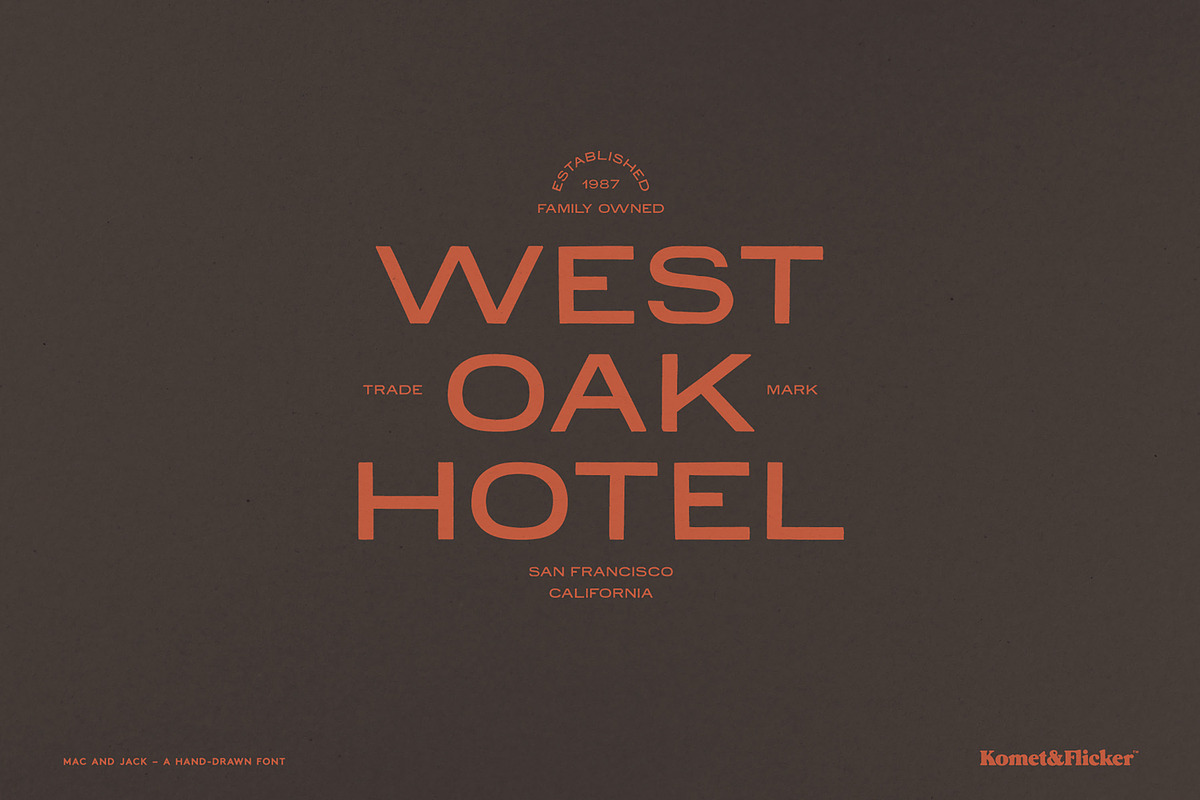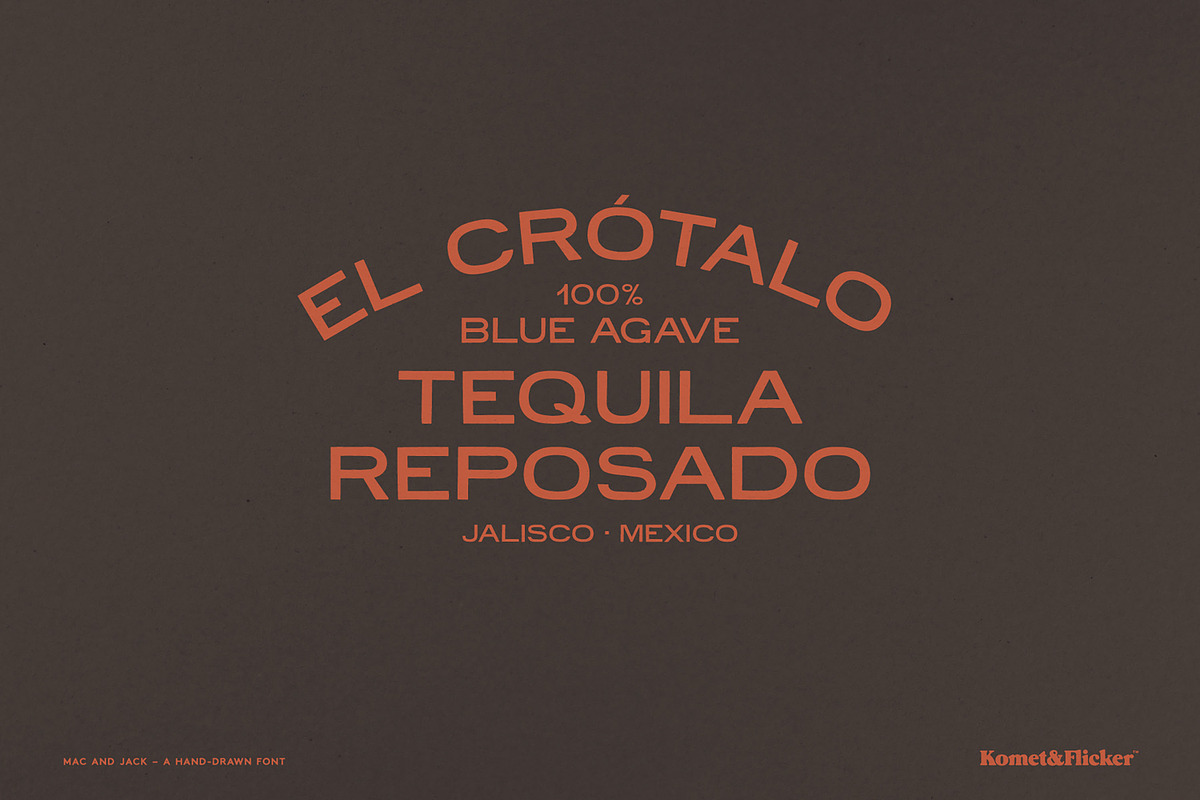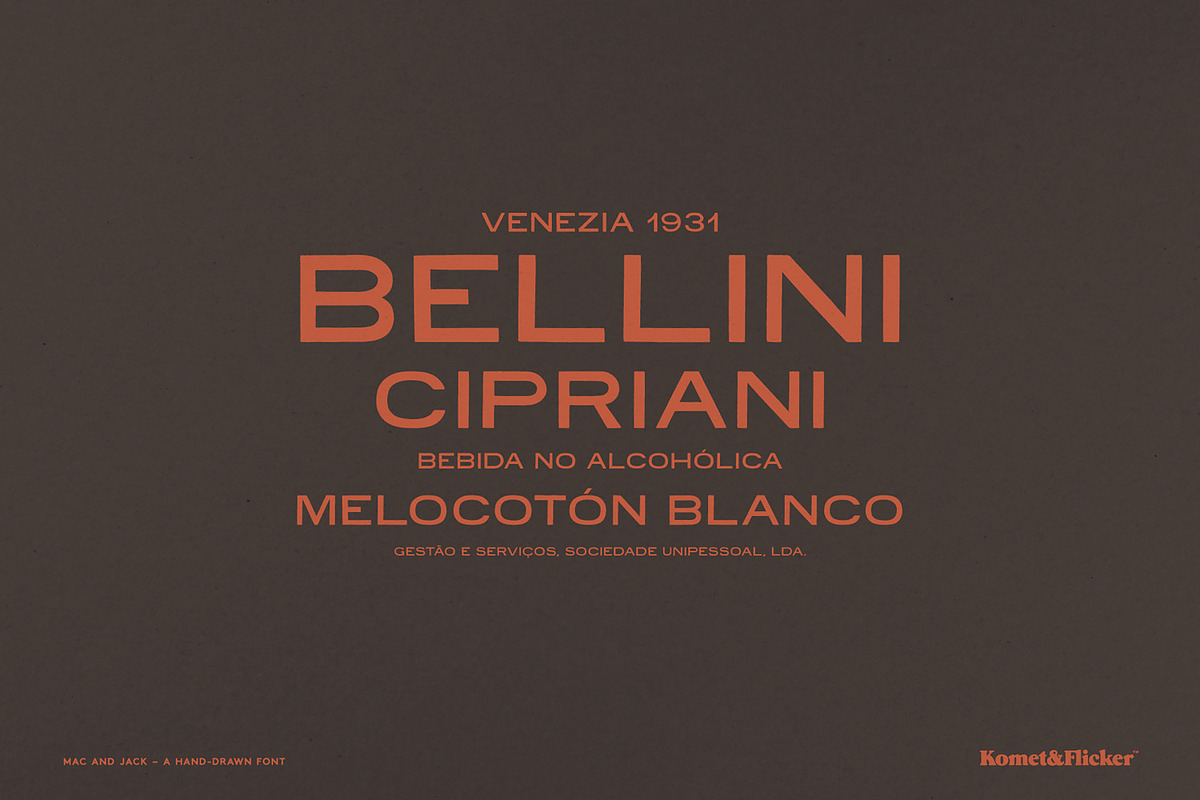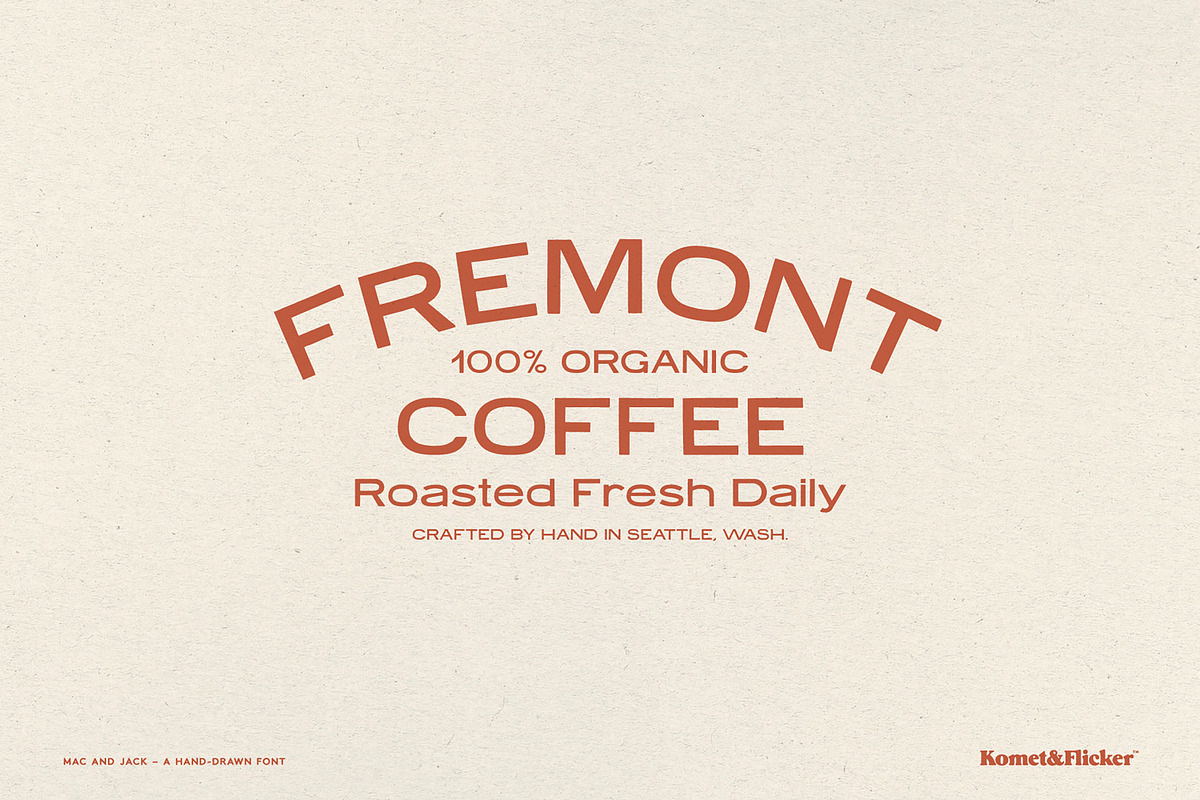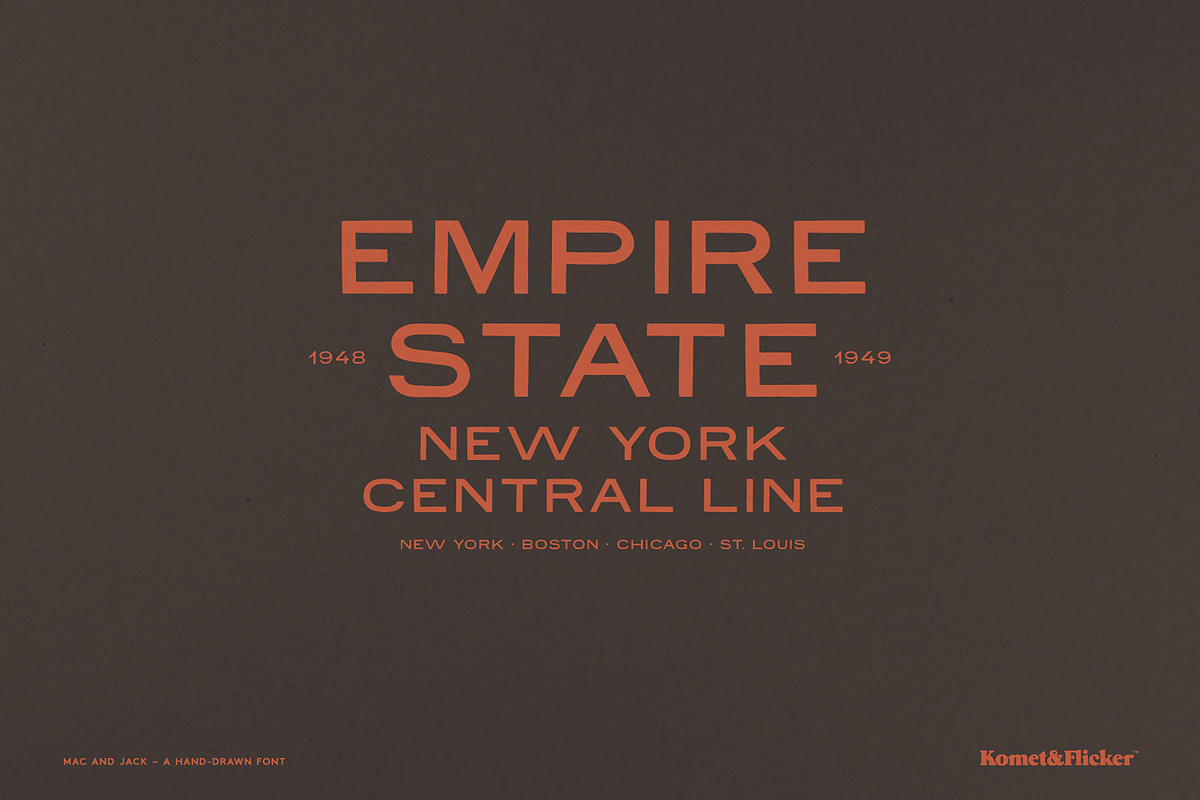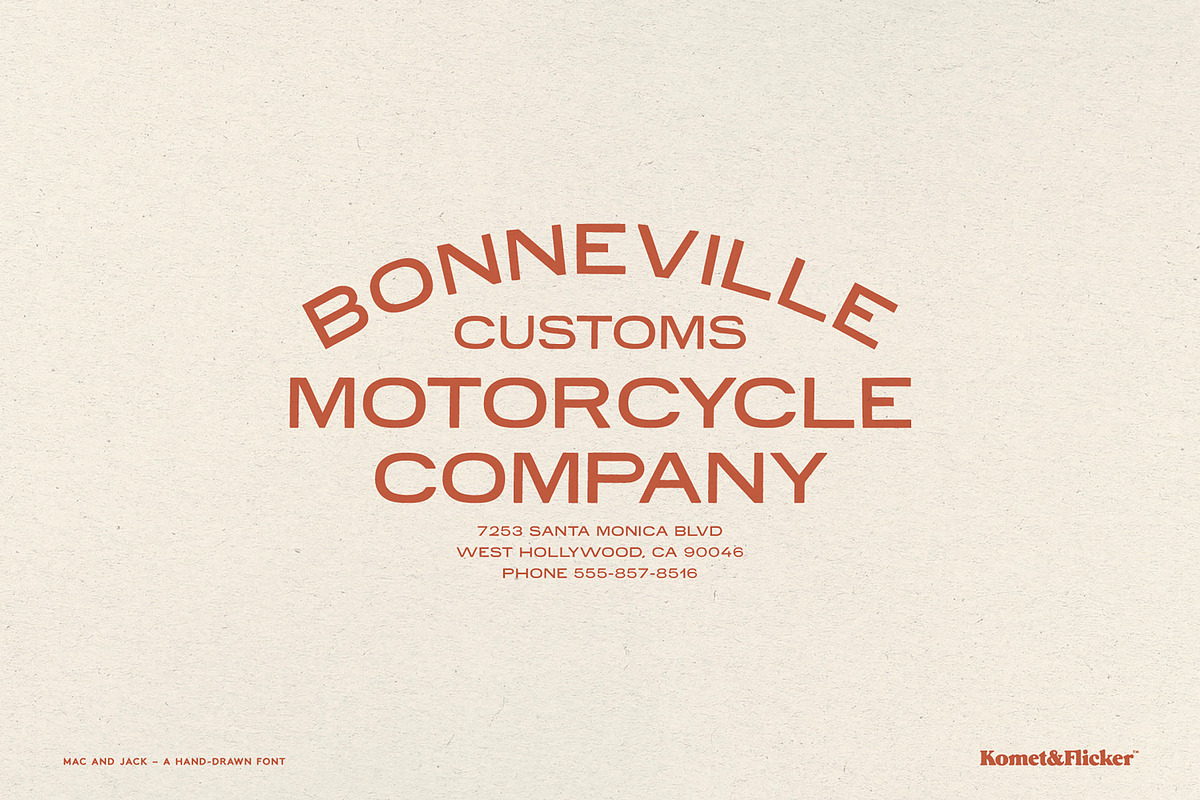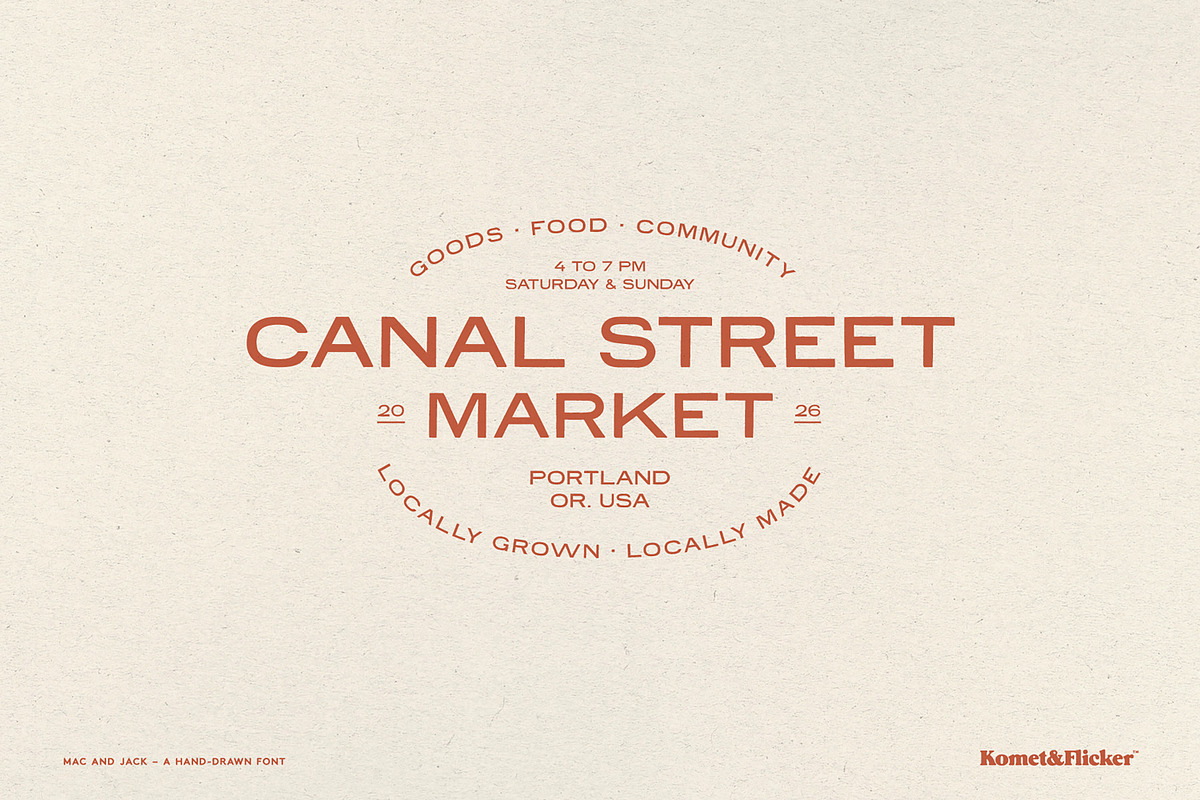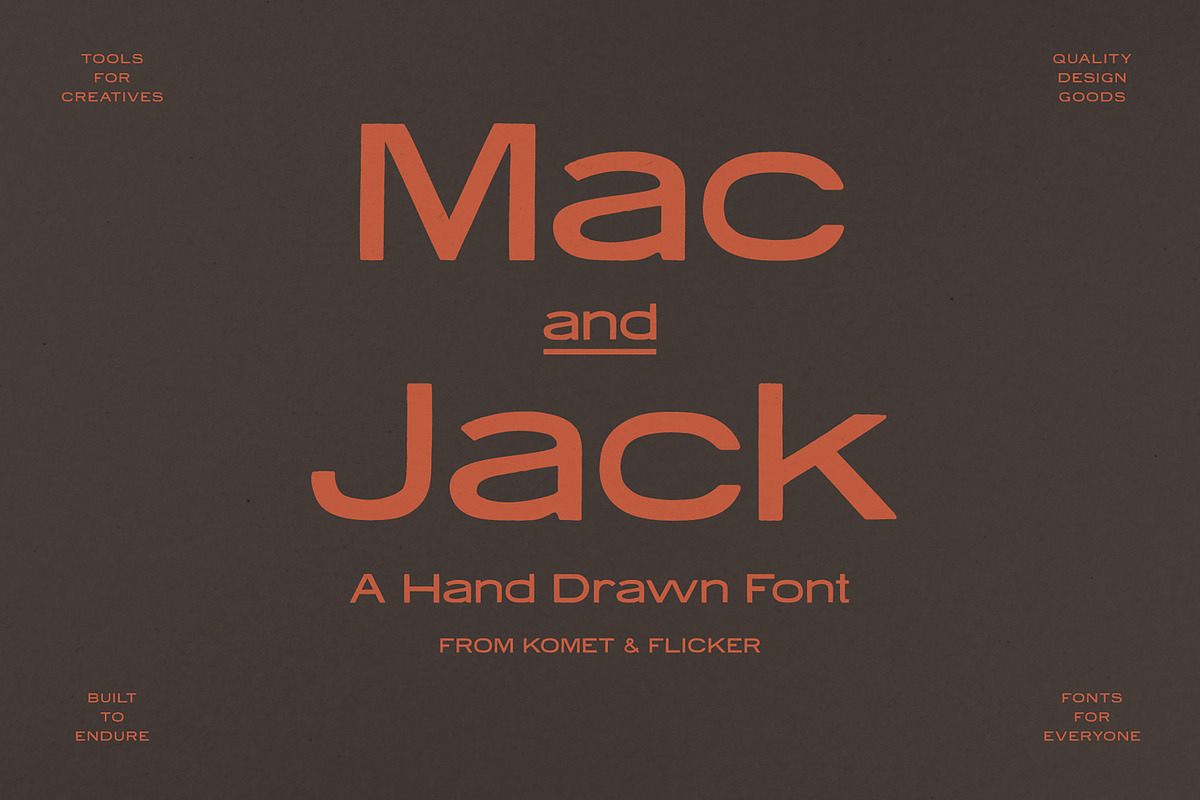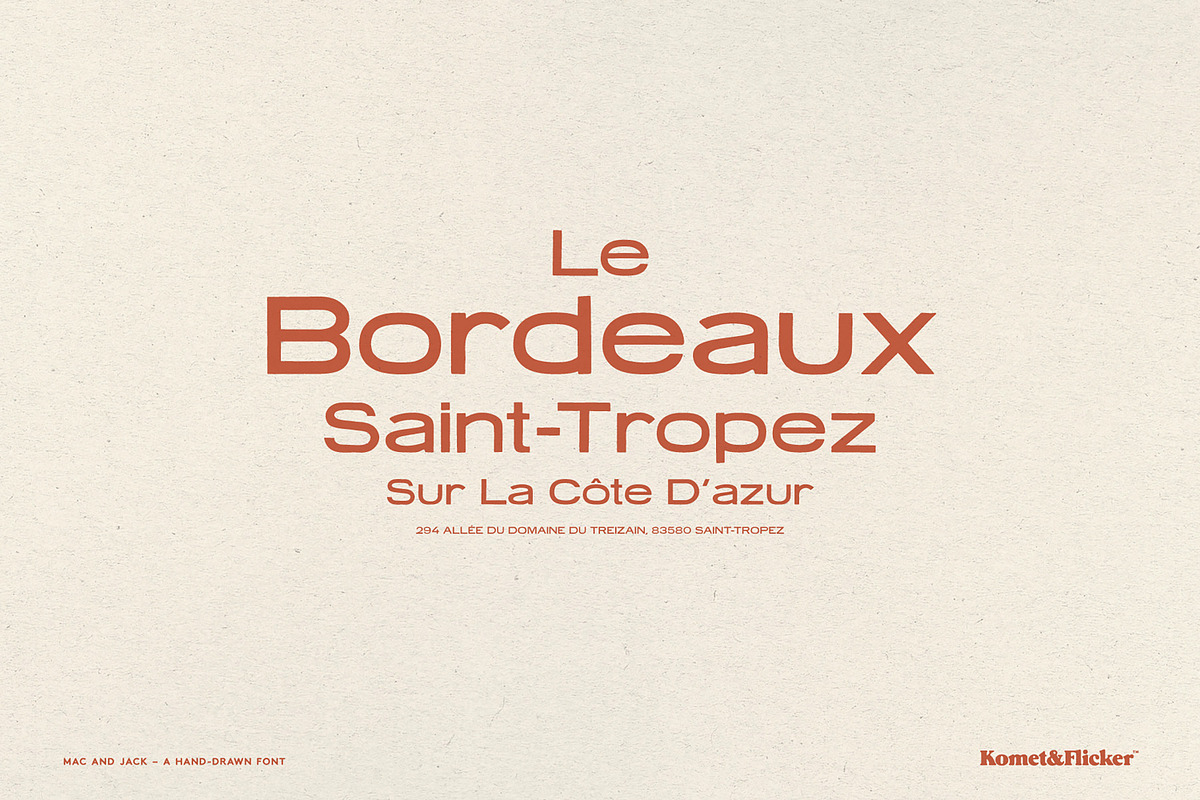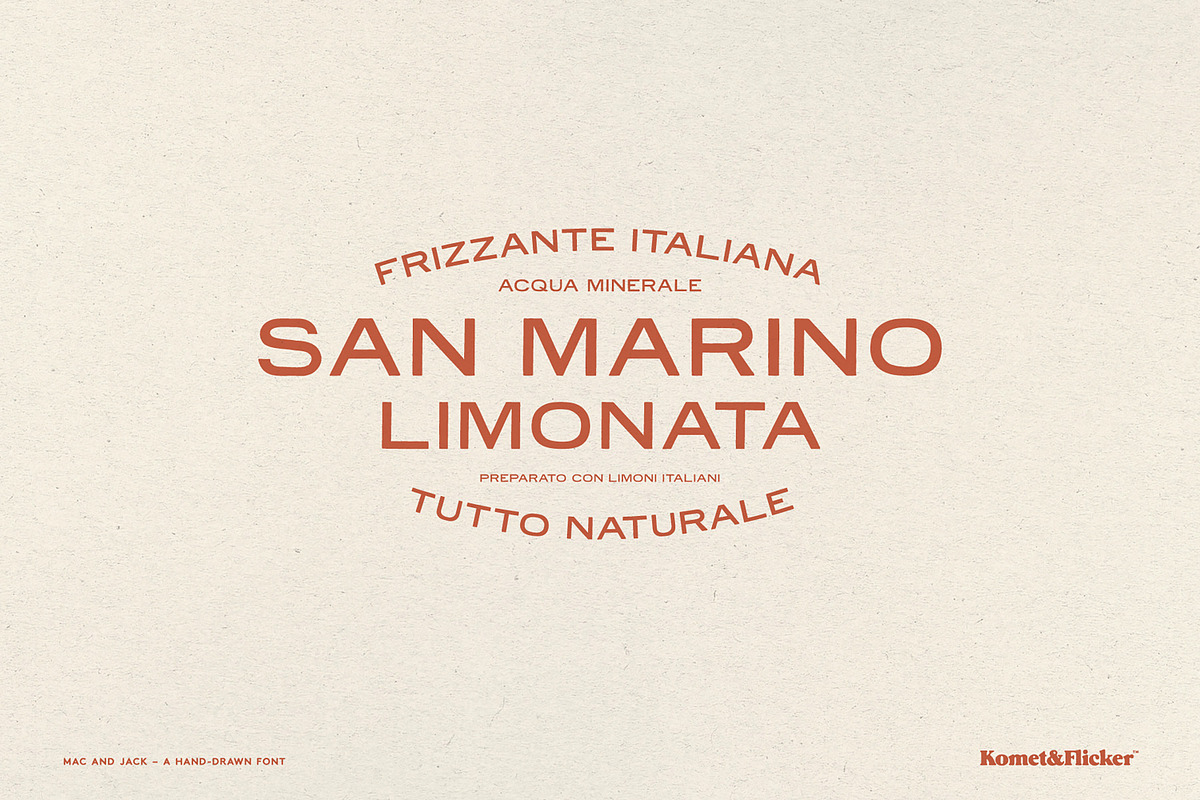
Mac and Jack
Hand-drawn with intentionally imperfect lines and edges, Mac and Jack captures the raw charm of lettering done by hand. Every stroke carries subtle irregularities that give the font a lively, human touch.
Mac and Jack channels a bold vintage feel, reminiscent of old signage, classic packaging, and retro print design. Its confident shapes and slightly rough contours make it perfect for projects that need personality and impact, from branding and posters to apparel and packaging.
If you're looking for a font that feels authentic, expressive, and unapologetically bold, Mac and Jack brings handcrafted energy and vintage attitude to every word.